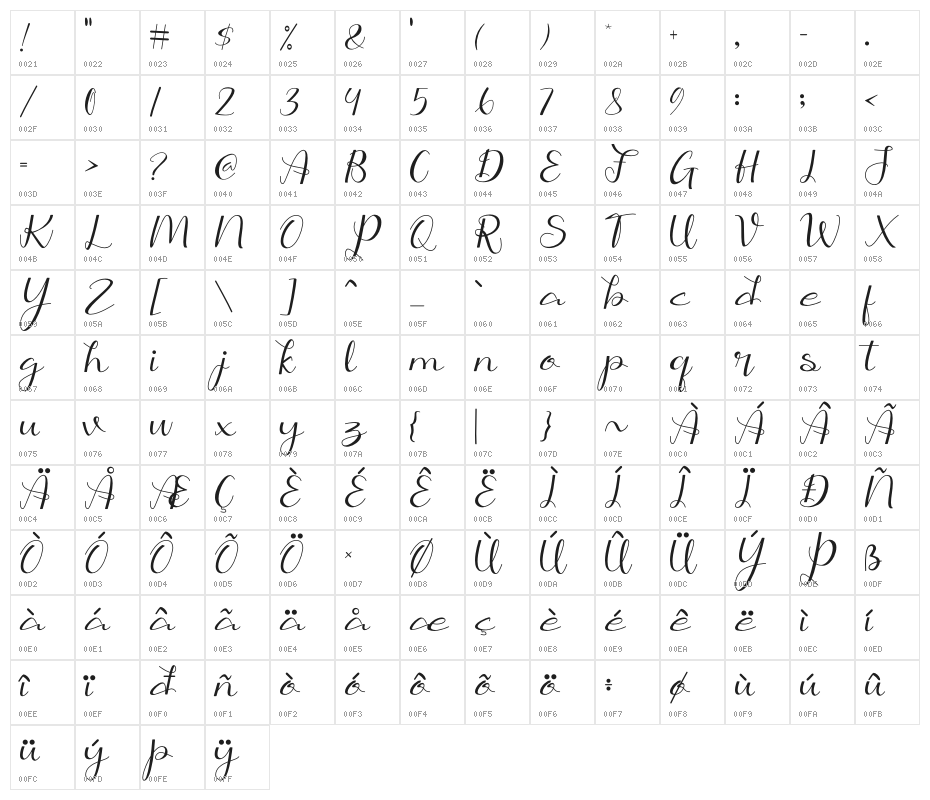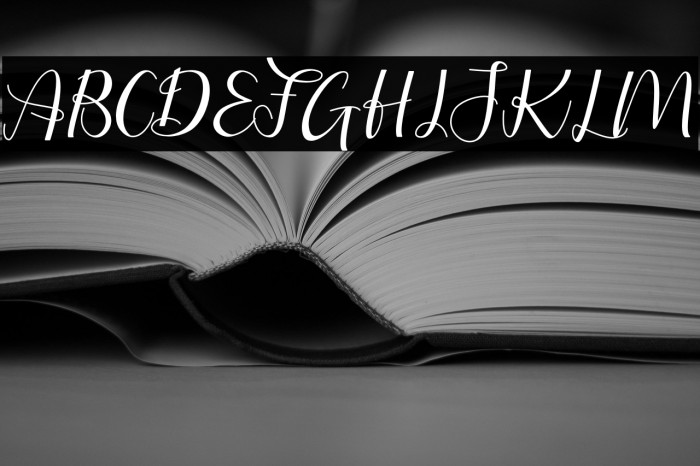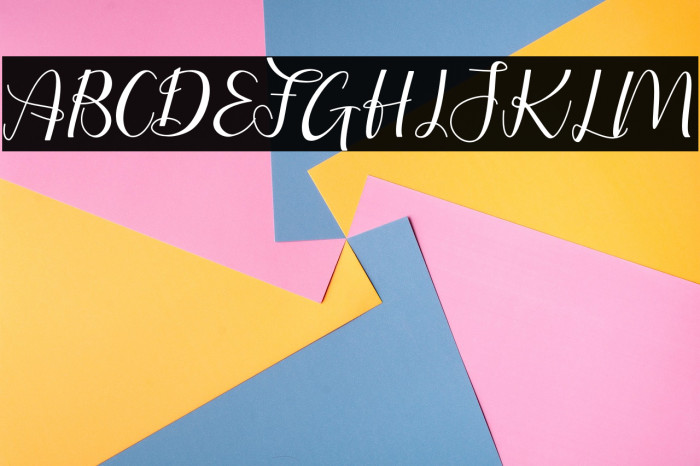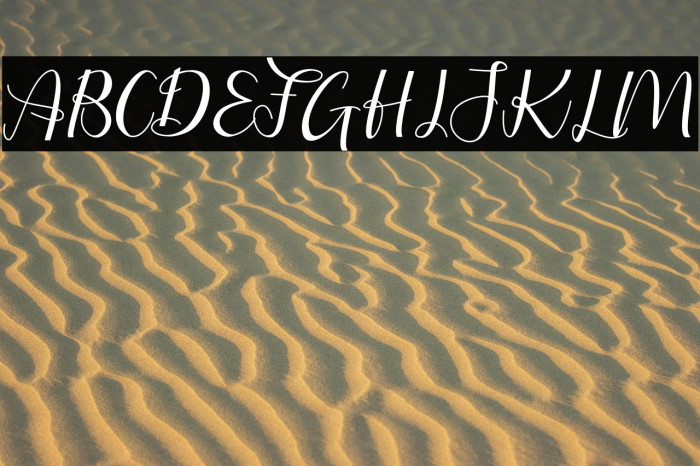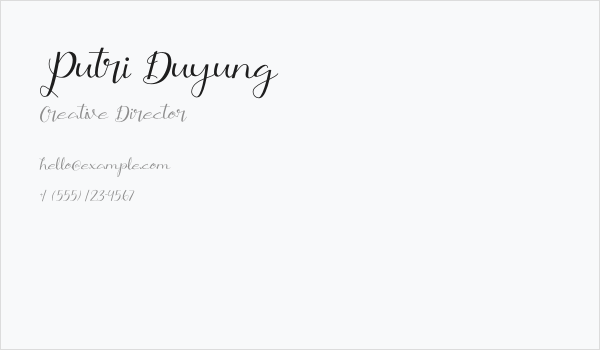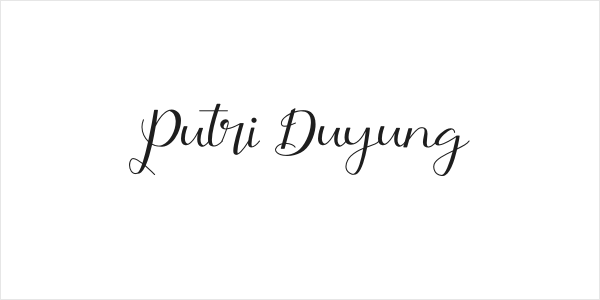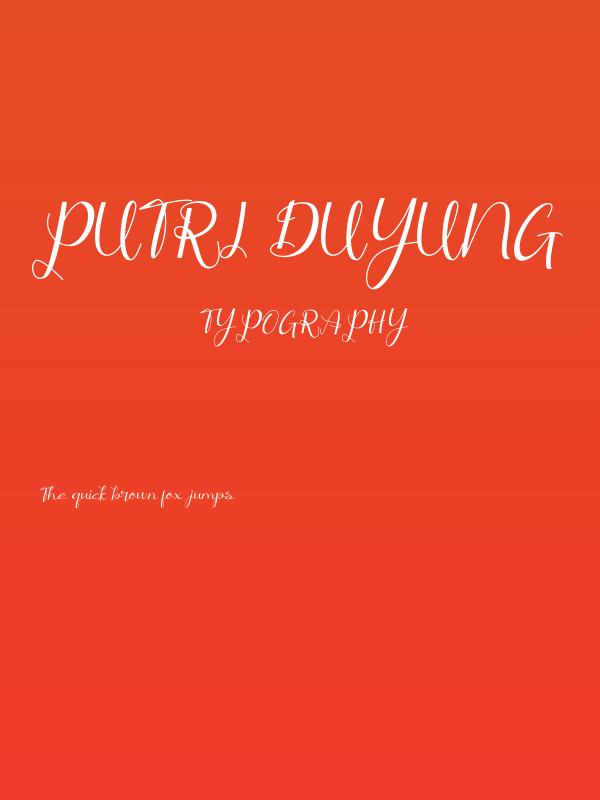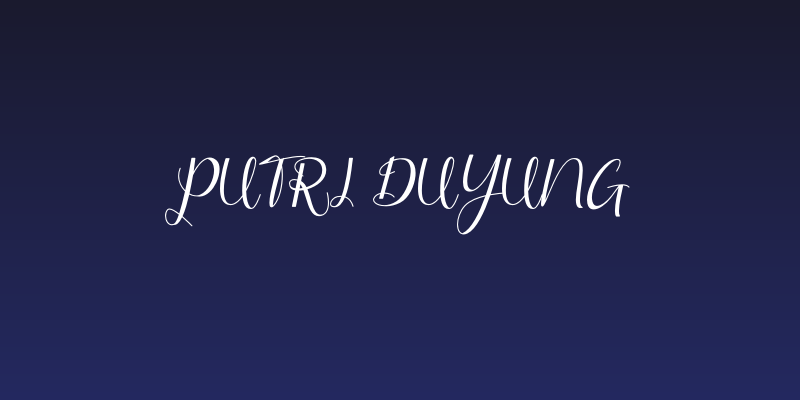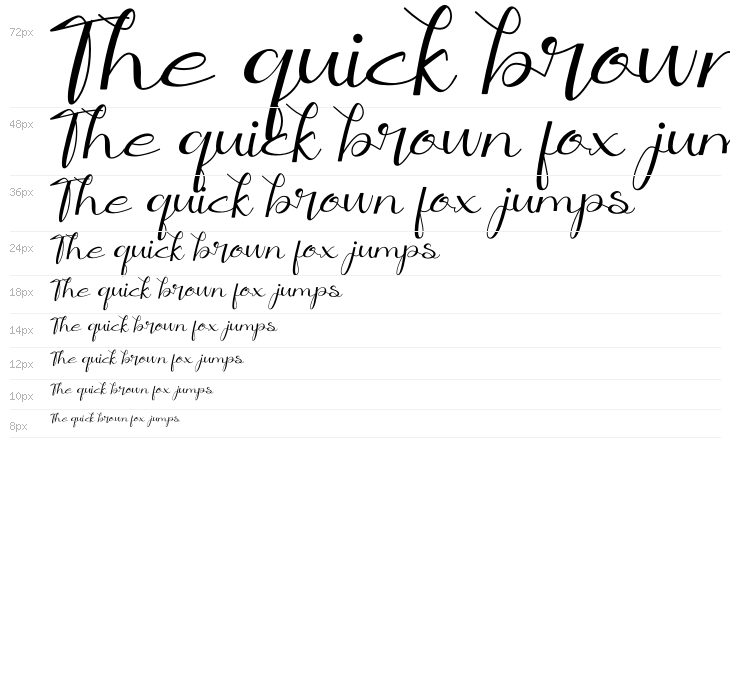
Putri Duyung Font
Putri Duyung Description
This elegant script font features flowing, cursive letters with a graceful and artistic flair. The uppercase characters are tall and slender, with sweeping curves and delicate loops that give them a sophisticated appearance. The lowercase letters maintain a consistent style, with smooth connections and a fluid motion that enhances readability. The numerals are distinct and stylish, matching the overall aesthetic of the font. Special characters are thoughtfully designed, adding to the font's versatility. This font exudes a sense of elegance and charm, making it suitable for a variety of creative projects.
| Overall Style | Elegant, Artistic |
| Proposed Projects | Ideal for wedding invitations, greeting cards, branding, and elegant logo designs. |